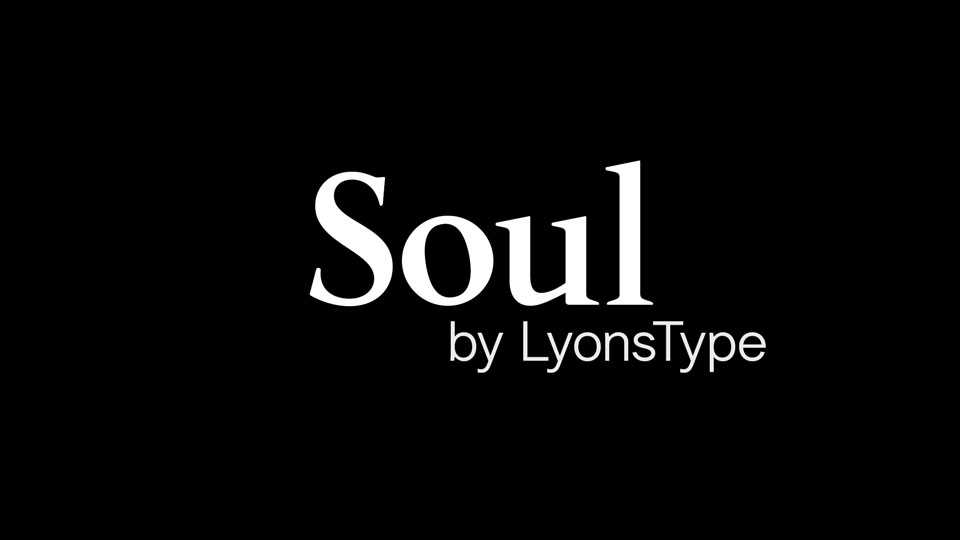
Download LT Soul font, a versatile and highly legible serif typeface designed for a wide range of applications. LT Soul font strikes the perfect balance between timeless elegance and modern functionality.
Designer: LyonsType